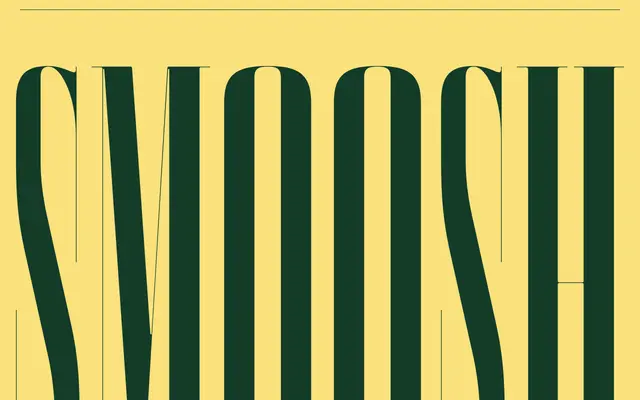
Smoosh specimen from Balto / Type Supply
A hyper-compressed, high-contrast display serif with needle-sharp serifs designed to be striking to the point of illegibility.
Smoosh pushes compression and contrast to an extreme, pairing delicate hairlines with very sharp, pointed serifs that create an aggressively decorative texture on the page. The foundry describes the effect as 'that's pretty, but what does it say?' — a clear signal that this is a typeface chosen for visual presence over readability. Best suited to headlines, logotypes or short display settings where the tension between elegance and illegibility is the point.
Hyper-compressed proportions and extremely high contrast with sharp, exaggerated serifs place this firmly in display territory, designed for impact at large sizes rather than text setting.